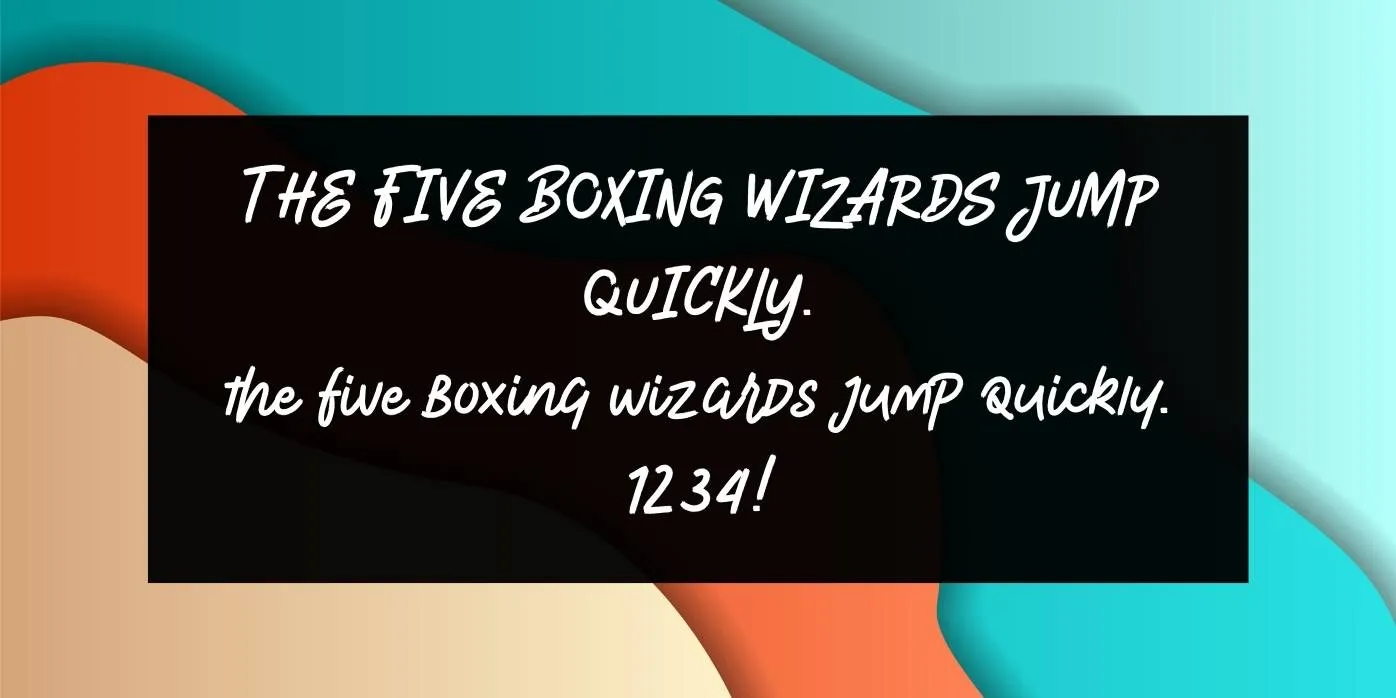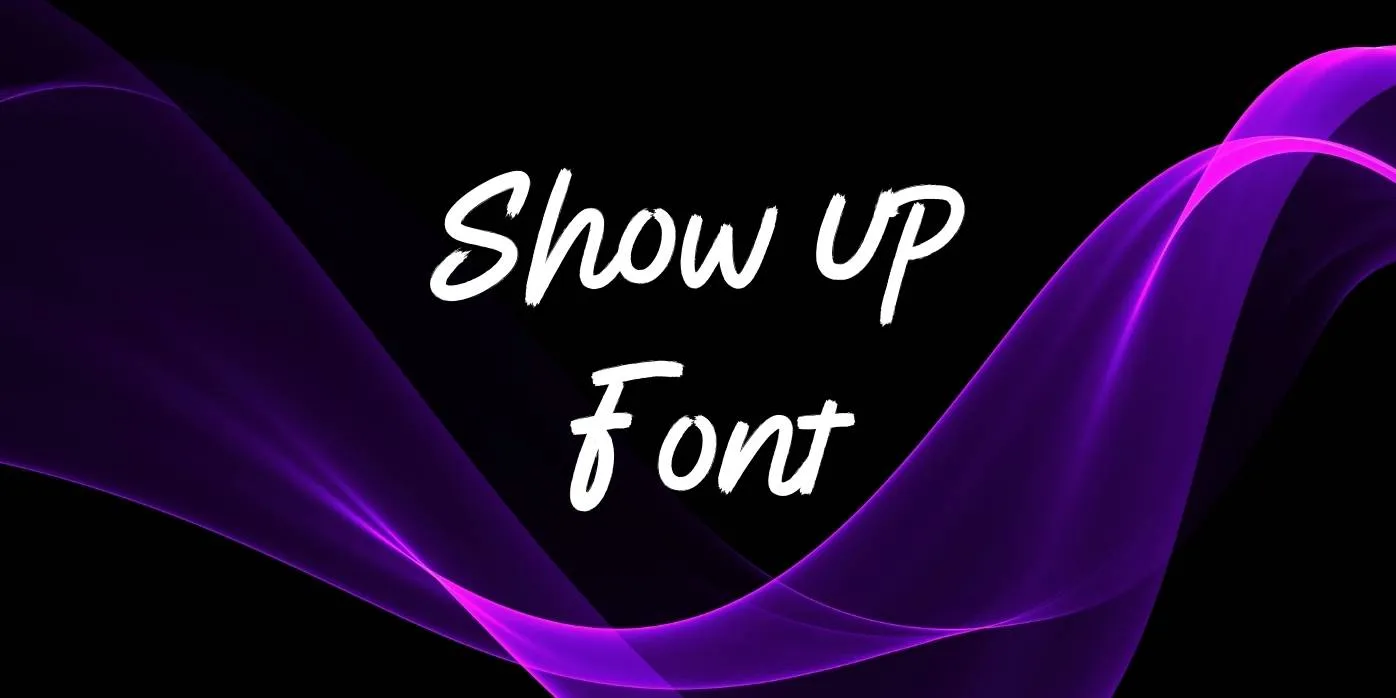
Show up Font
The Show up Font belongs to the handwritten texture family. It was written by hand using a brush pen. The style of this font are very simple and attractive. This font is designed by a German foundry named Typefactoryco.
It is a very decorative and classy font. It has characters, symbols, capital letters, small letters, numbers, punctuations, and special characters. The weight of the font is normal and the width of the font is medium normal. It has rounded shapes and styles with a touch of humanistic designs.